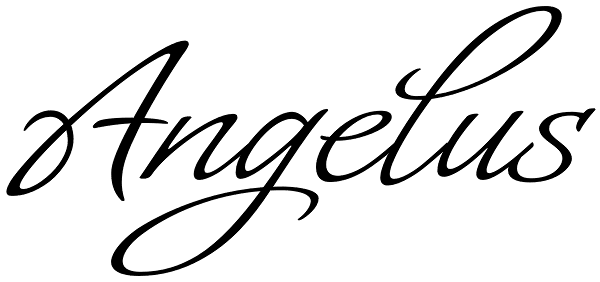
Angelus
Angelus is a flowing script that can be seen as a more casual modern version of the copperplate script, with a fresh take on the way the ascenders and descenders interact with the totality of the setting. Angelus is ideal for use in package design...